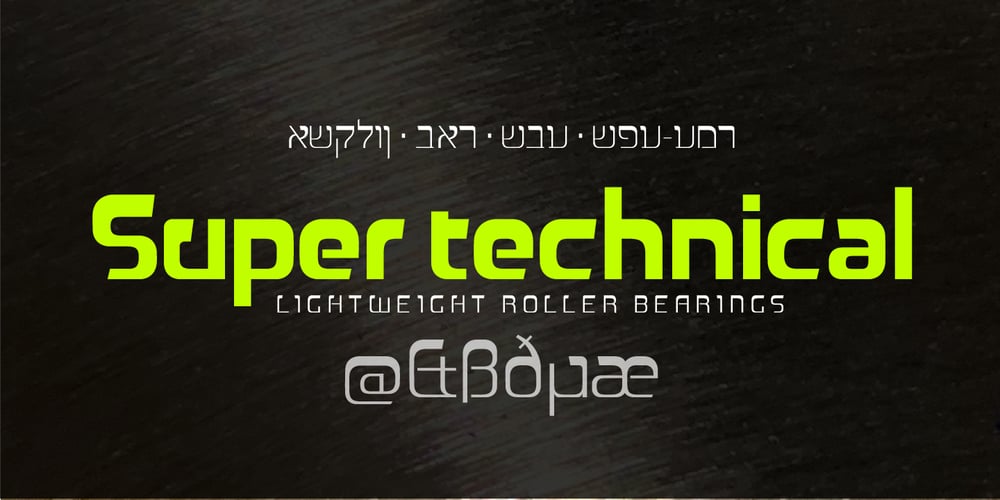
Reboot
Reboot font
Reboot Font Family was designed by Ben Truelove and published by Typelove Fontworks. Reboot contains 7 styles and family package options. Born in the lab as a research experiment, Reboot is great for that certain 70’s sci-fi need. It’s filled with the angular curves of the technology of yore, with full diacriticals for Eastern European Cold War era galactic display copy. It’s the first font of a series of research experiments, varying from rectilinear to ovoid.